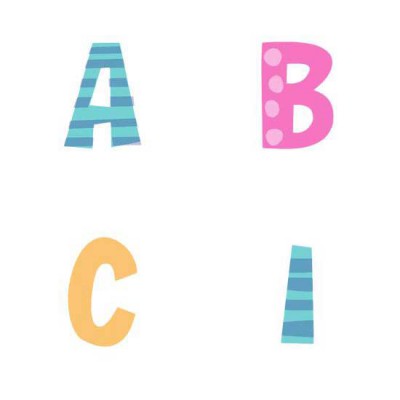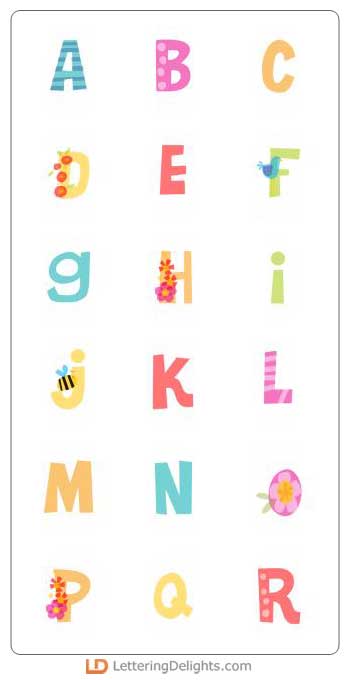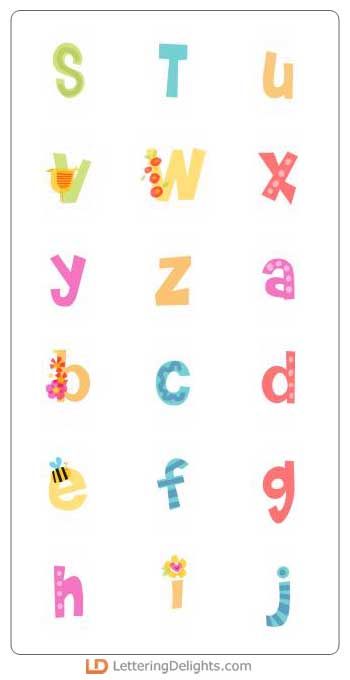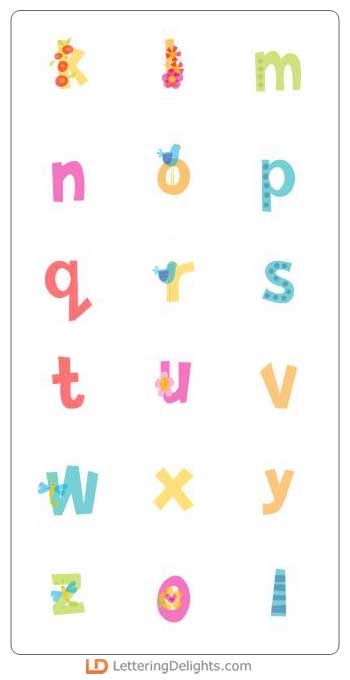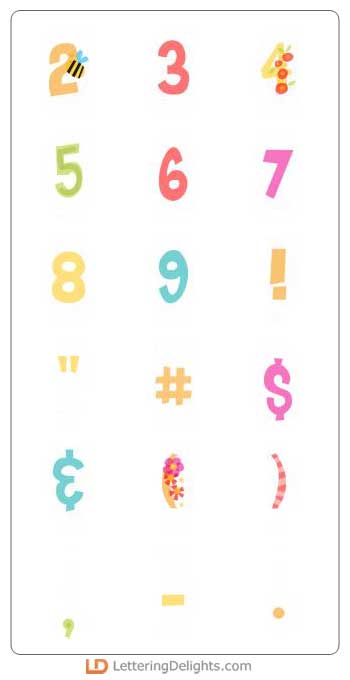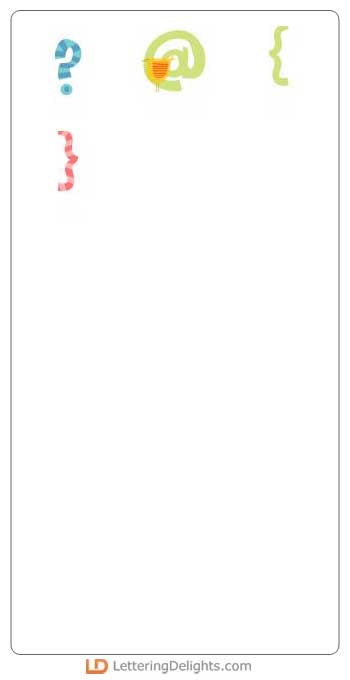
Summer Delight alphabet is bright, and fun, and everything you need to catalog your summertime memories! Each letter is uniquely designed with summer in mind which makes scrapping easy!